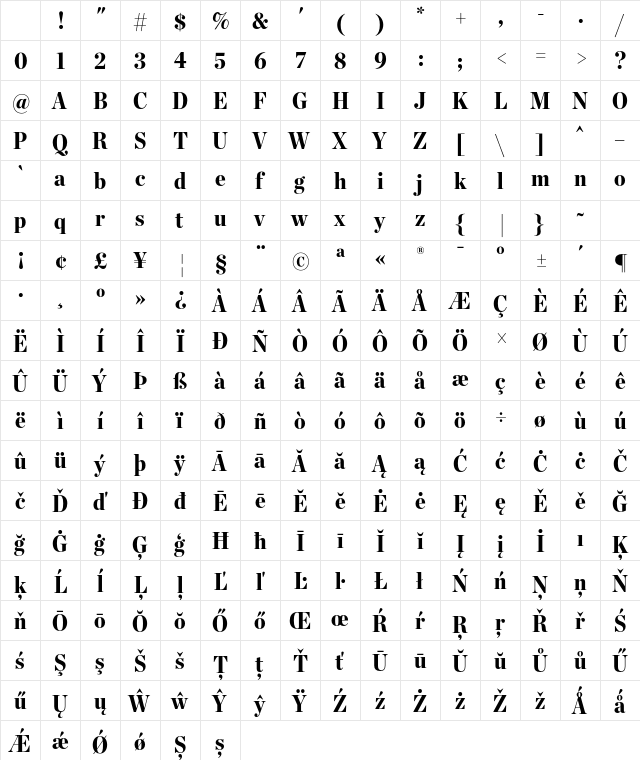
Chronicle Disp Cond is a composed and adaptable typeface that performs quietly and consistently across a wide range of design contexts. Its narrow stance lets it pack a punch even in space-constrained designs.